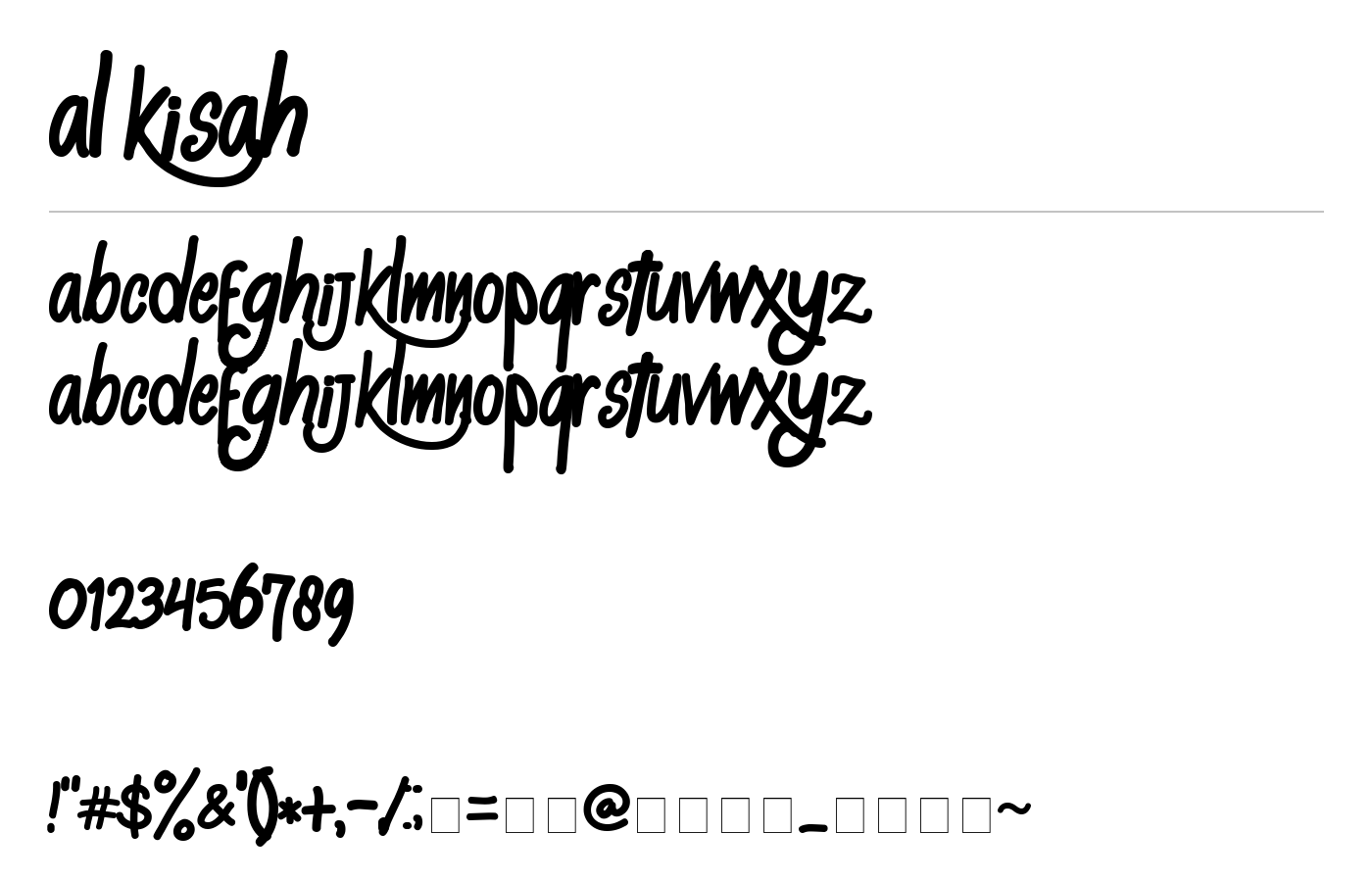
Al Kisah is a playful and casual handwritten script font with a lively, energetic feel. Its tall, slightly condensed letterforms feature smooth, rounded strokes and whimsical swashes that add personality, making it perfect for creative branding, informal logos, or eye-catching headlines. This font’s friendly style makes it ideal for projects that want to convey warmth and approachability with a unique, artistic touch.
al kisah Font
About al kisah Font